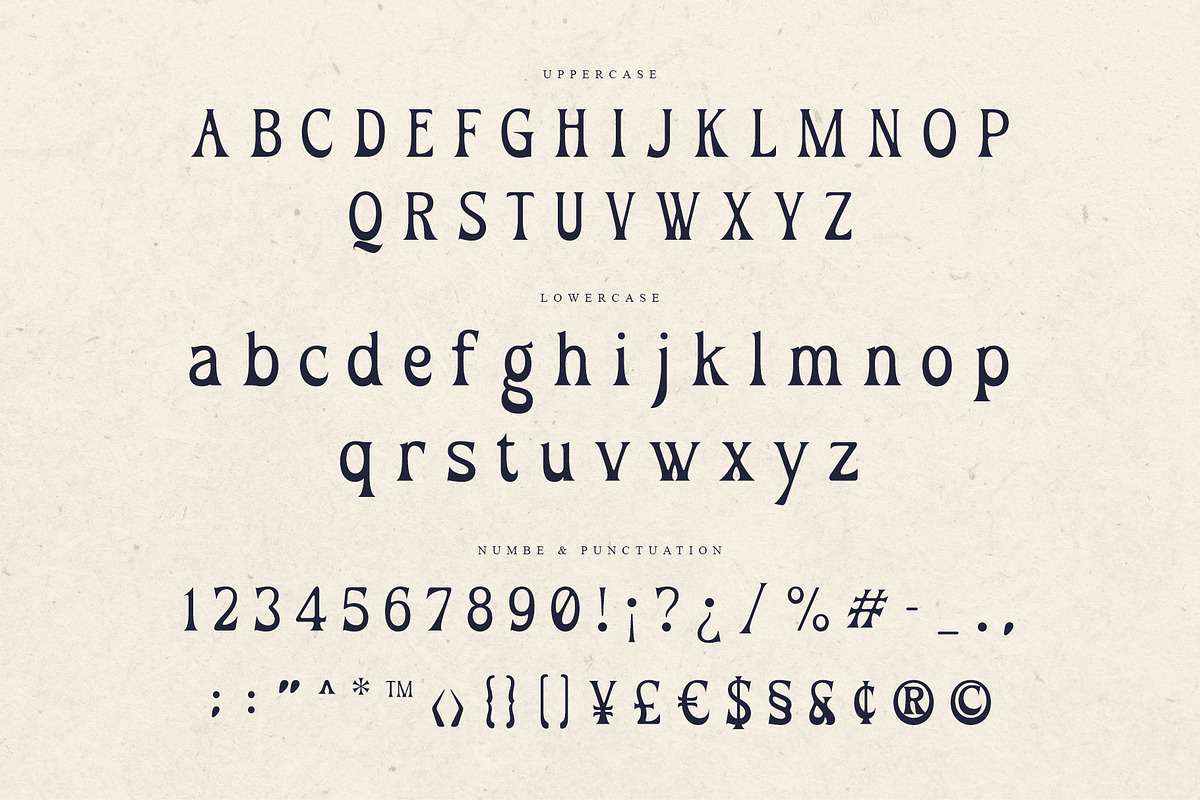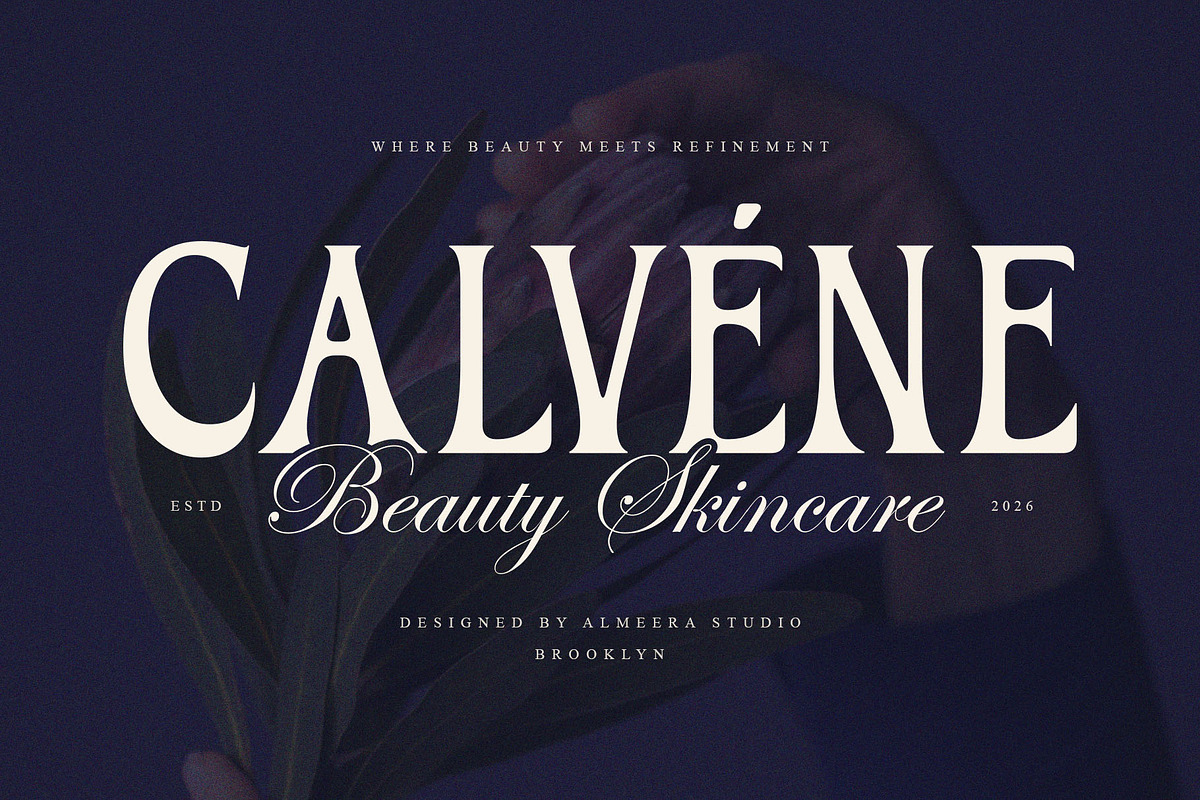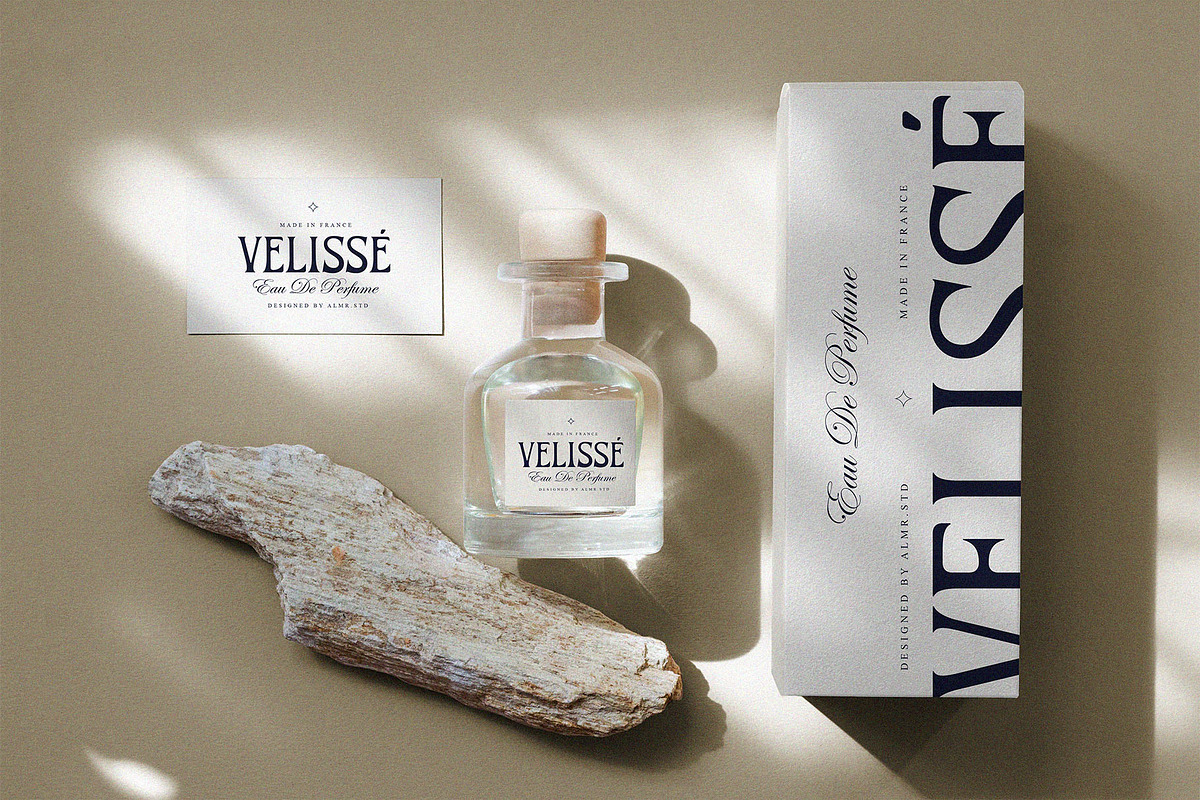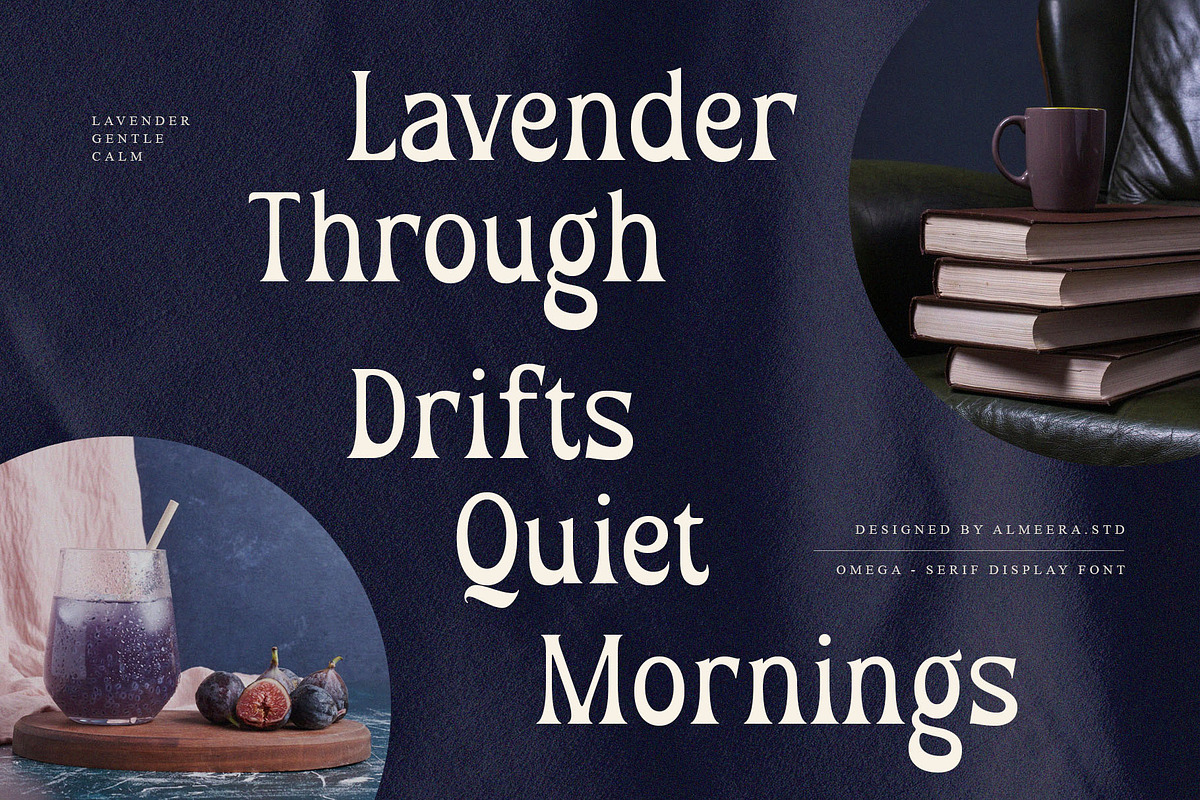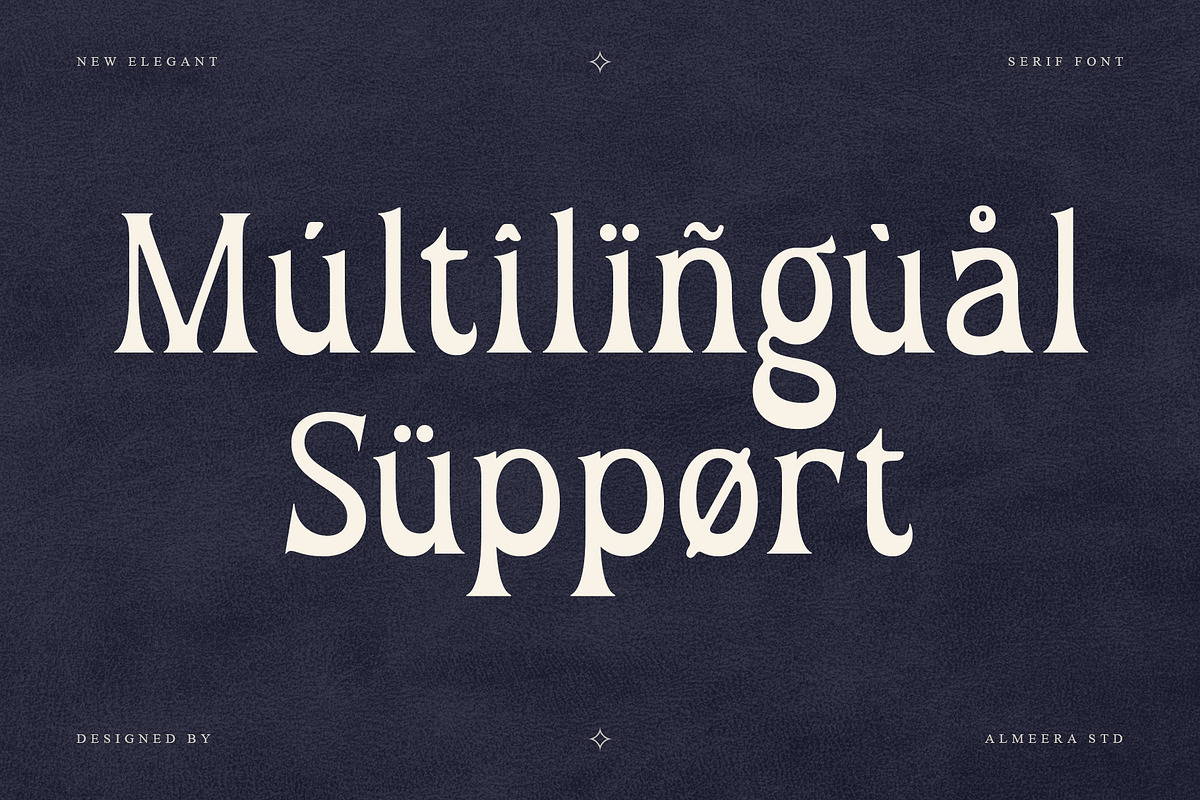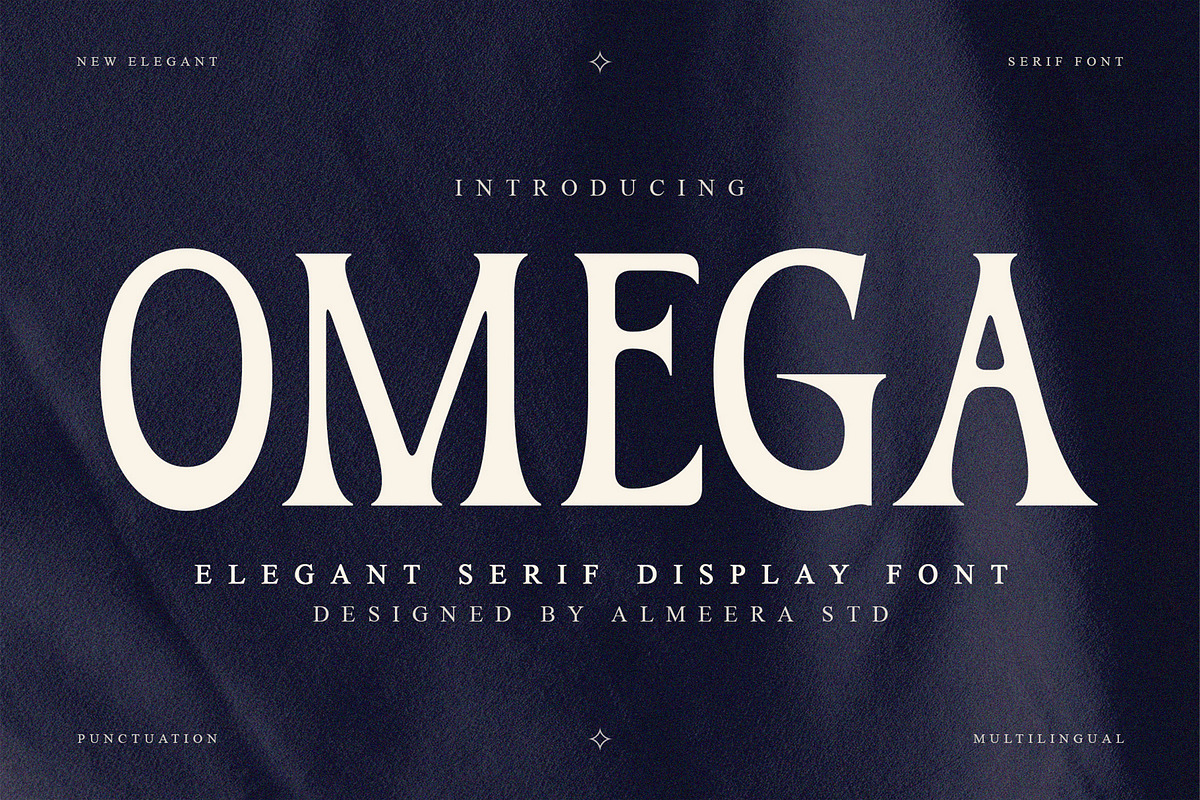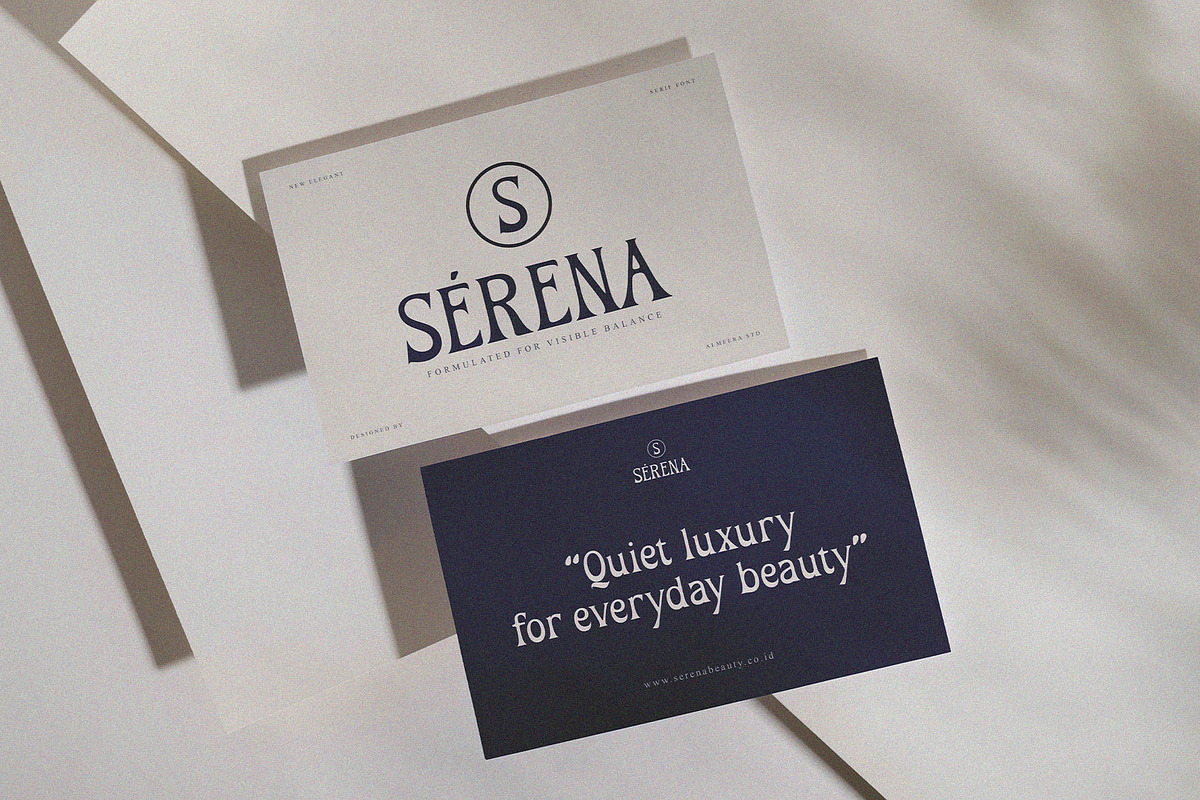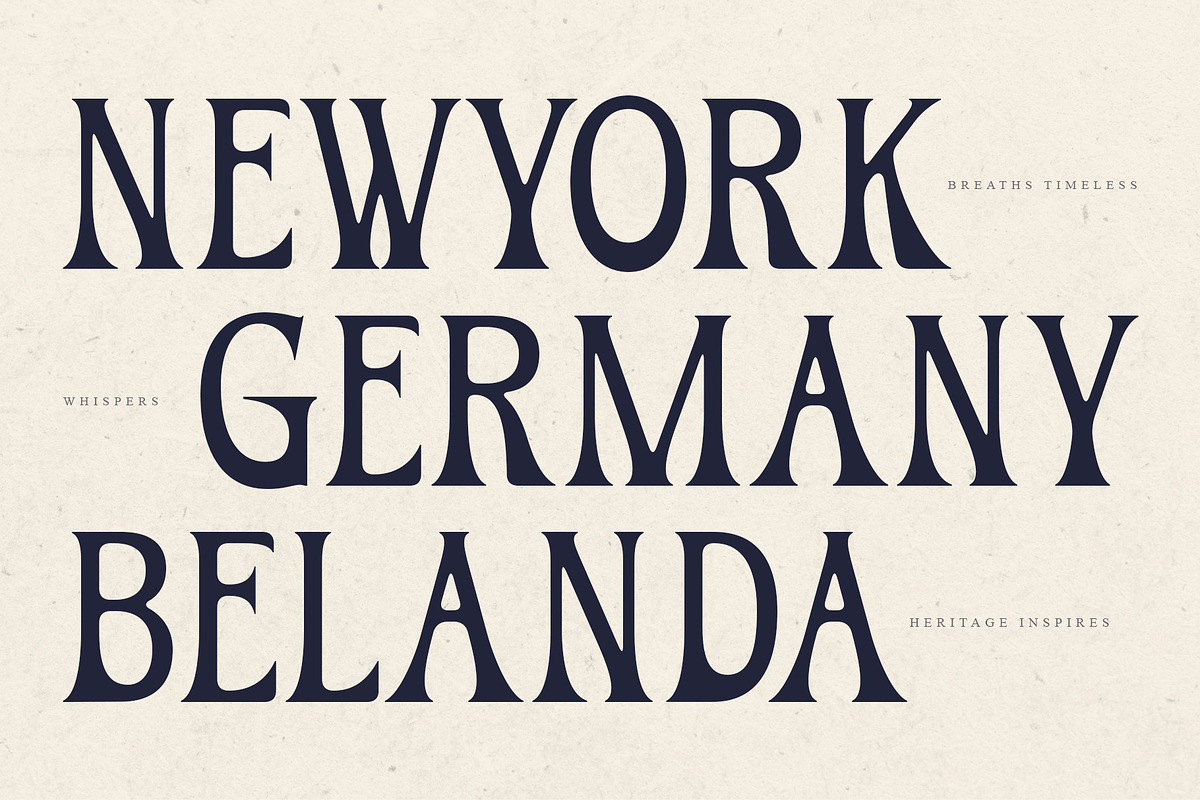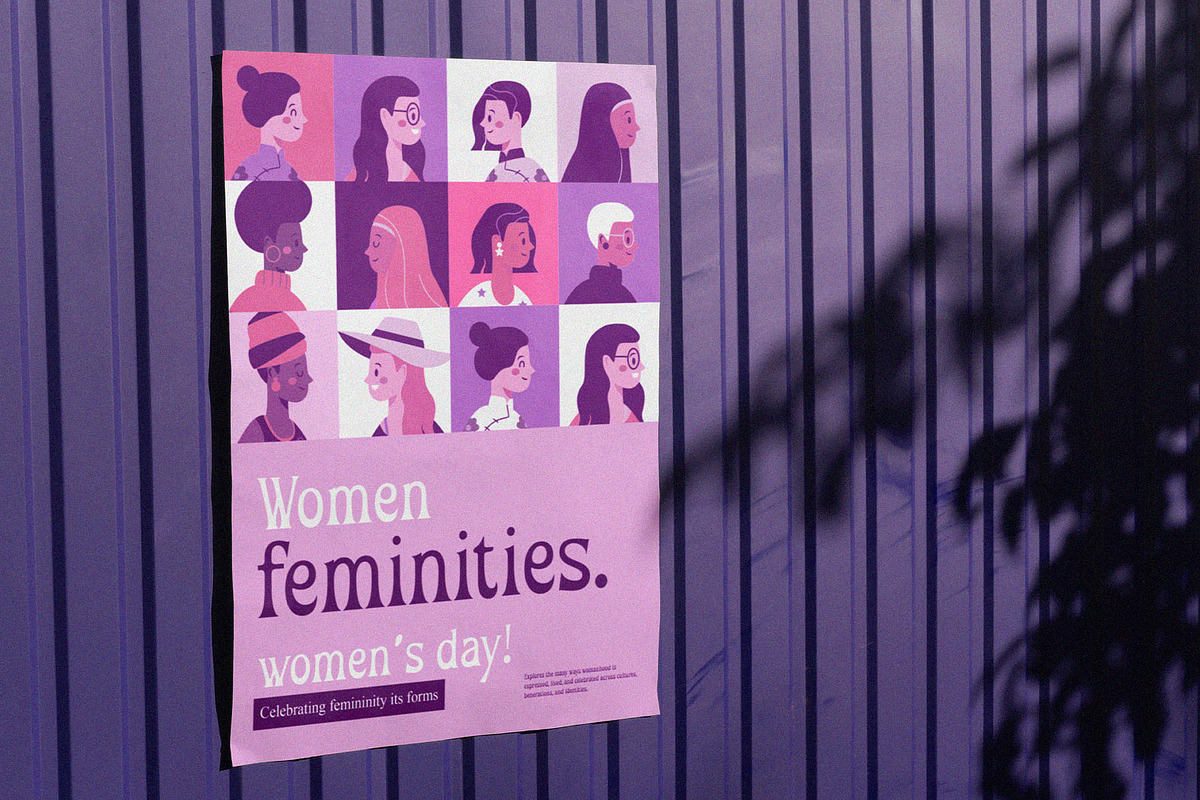
Omega – Serif Display Font
Omega is an elegant serif display font with strong proportions, refined details, and a confident modern character. Its clean structure and balanced contrast make it ideal for bold headlines while maintaining a sophisticated and professional look.
This font works perfectly for branding, editorial layouts, logos, posters, packaging, website headers, and premium print materials. Omega delivers clarity, authority, and elegance in every composition, making your typography stand out with confidence.
Omega is designed for creatives who need a serif display font that feels modern, powerful, and timeless at the same time.